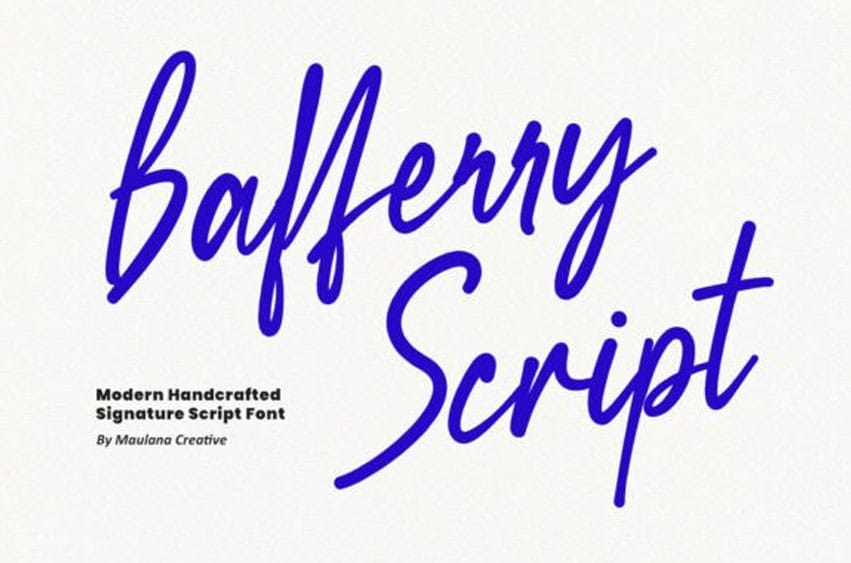
Bafferry Script Font
Bafferry Script Font is a premium handwritten script font that strikes the perfect balance between casual elegance and modern street style. Featuring natural brush-like strokes and a fluid flow, this font is designed to give your projects a personalized, high-end feel.
The Bafferry Script font is highly versatile, feeling equally at home on a high-end fashion magazine cover as it does on a casual coffee shop menu. It is an exceptional choice for logo design, especially for personal brands, photographers, and influencers. Pair the Bafferry Script typeface with a bold, heavy sans-serif to create a dynamic contrast that looks professional and trend-conscious. Whether you’re designing apparel, luxury packaging, or high-impact social media graphics, this font brings a sense of authentic human movement to the digital canvas.
Perfect for:
– Branding & Logo Design
– Wedding Stationery & Invites
– Fashion & Lifestyle Photography Overlays
– Social Media Templates